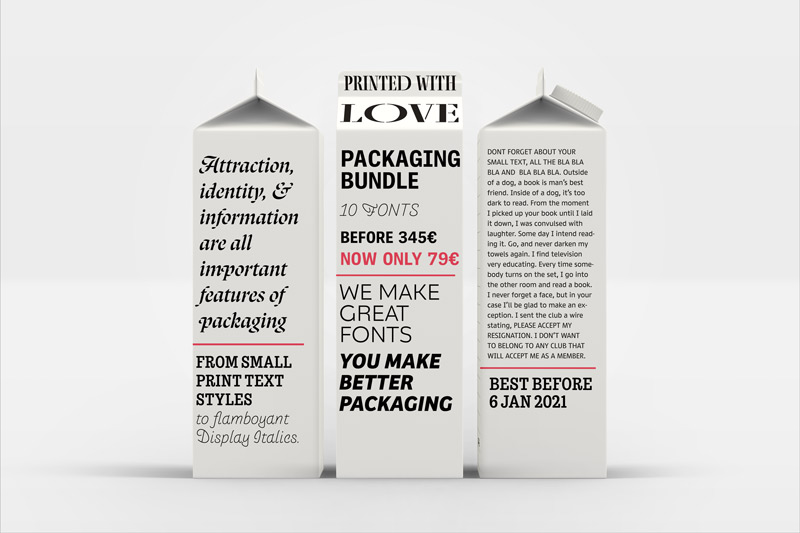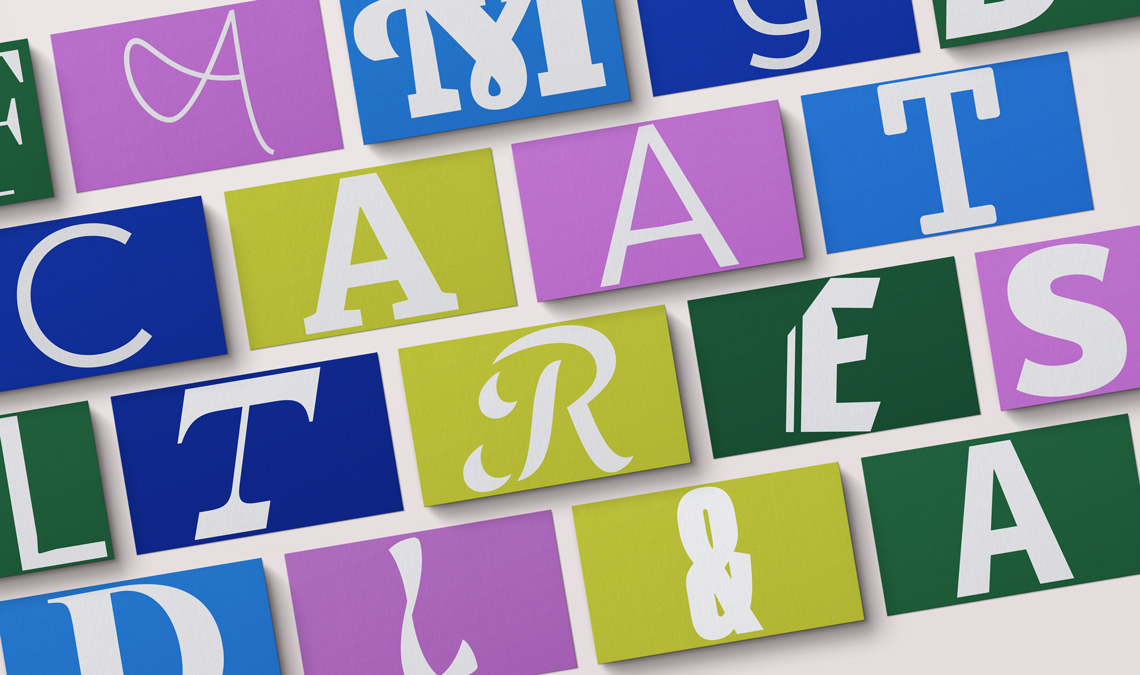
Bye Bye 2020: font packages to make you forget about it all
2020 brought many surprises to us all. Some changes we would have preferred to do without, and some of them moved us ahead. On the doorstep of 2021, let’s all forget about the past and get ready for a fresh start.
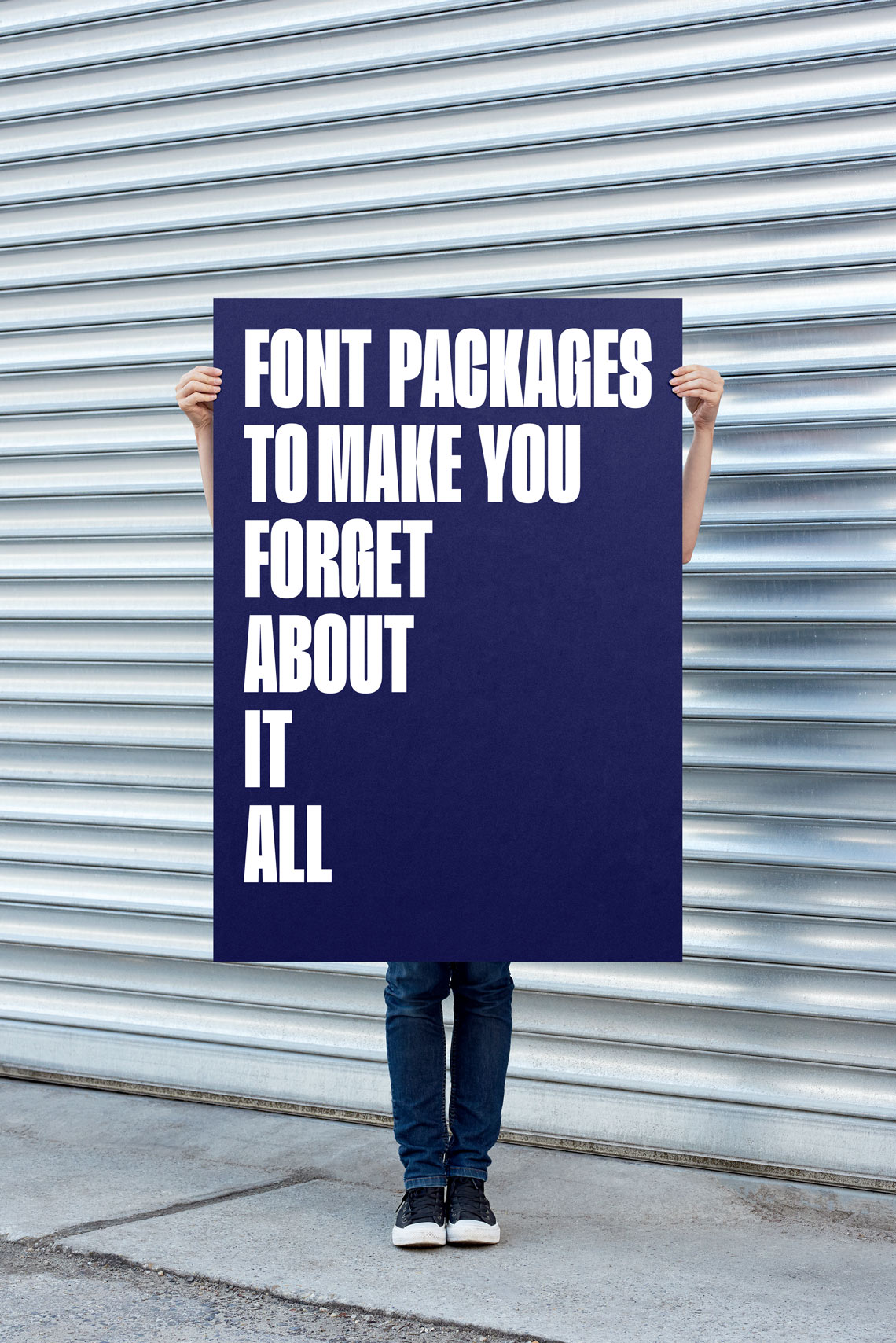
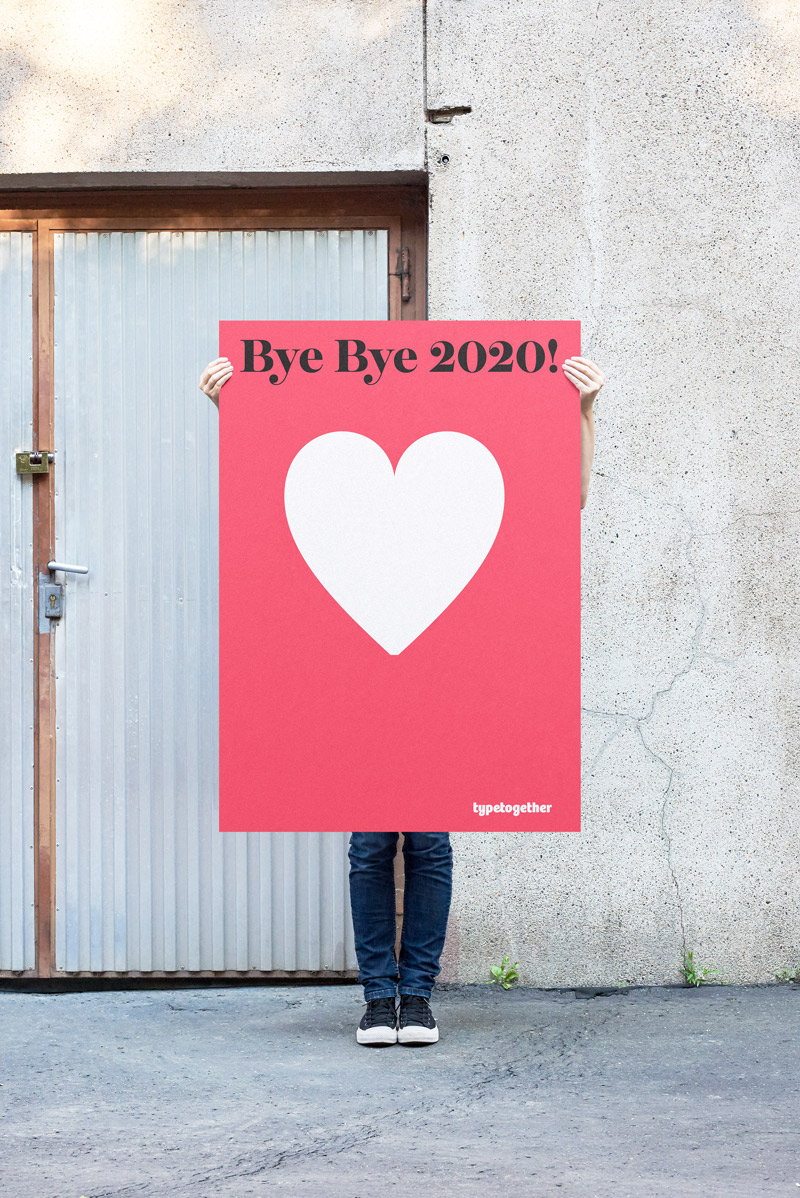
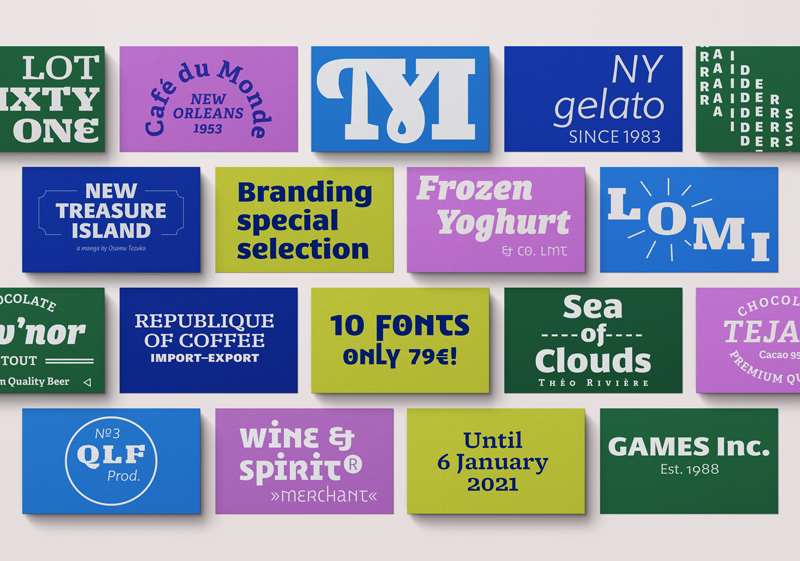
poster
This special font selection for posters has a bunch of daring and eye-catching options, as well as supplying an option for info texts.
Temeraire: Italienne Italic & Display Black
Tablet Gothic: Compressed Regular & Extrabold
Protipo: Compact Black
Lektorat: Compressed Black
Eskapade Fraktur: Black Italic
Lisbeth Display: Regular
LFT Etica Mono: Bold
Abril Titling: Condensed Bold Italic
Branding
Branding is as ubiquitous as it is varied, so for this special font selection we have chosen a rather diverse group of typefaces covering a multitude of tones.
Adelle: Bold and Bold Italic
Sanserata: Black
LFT Arnoldo: Light and Light Italic
Molto: Medium and Fat
Bree Serif: Extrabold Italic
LFT Iro Unicase: Light and Bold
Packaging
Attraction, identity, and information are all important features of packaging. This special font selection includes choices for it all — from small print text styles to flamboyant display italics.
Laima: Italic & Bold Italic
Bree: Bold Italic
Arlette: Light Italic & Bold Italic
Fino Stencil: Medium
Catalpa: Light
Trevor: Medium
Adelle Mono Flex: Bold
Lipa Agate Low: Regular